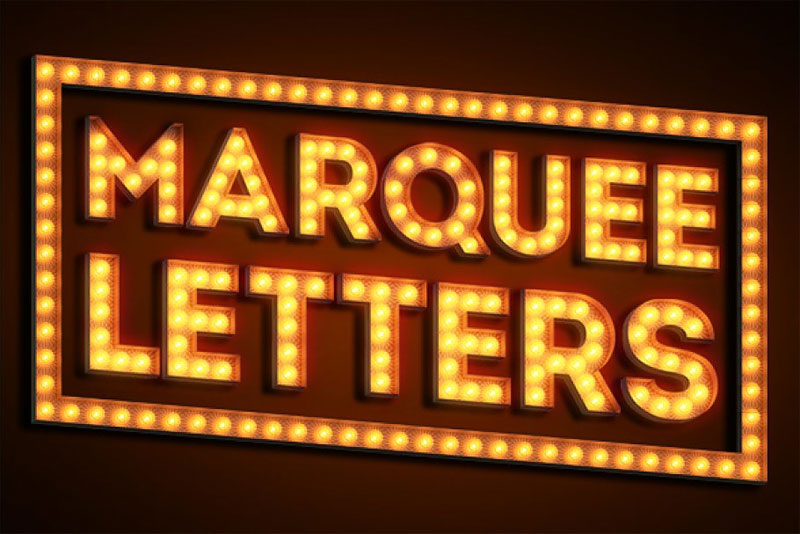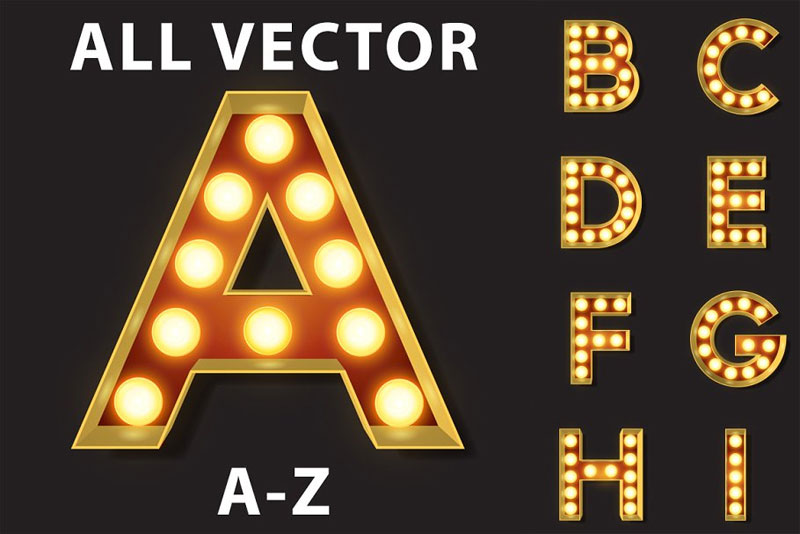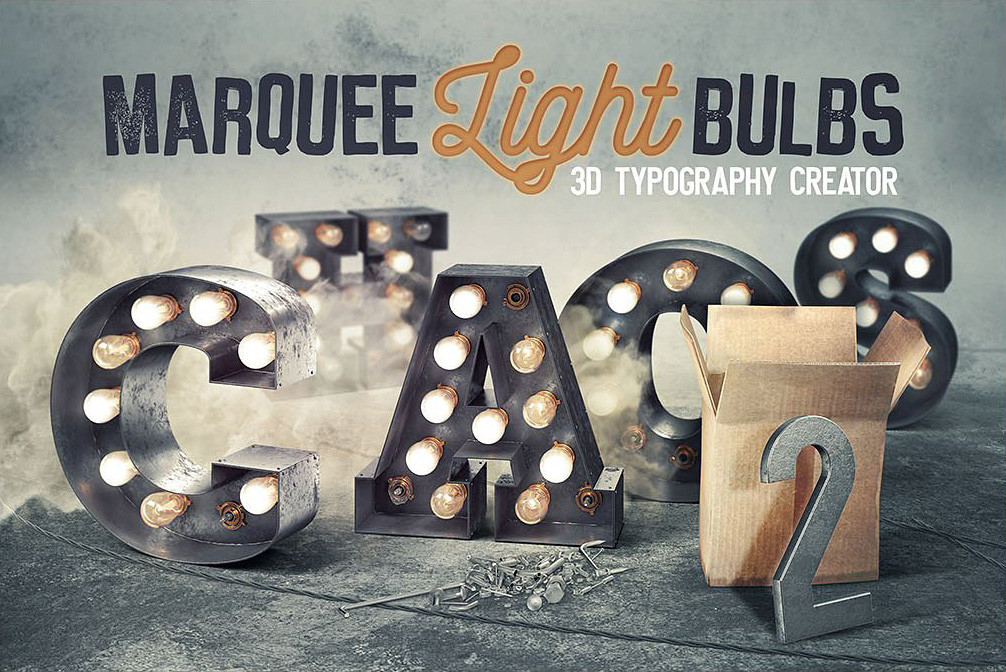
Our best friend and uk top graphic designer mr. Gloom font is a characteristic distance that is a light font.
Marquee Font Download Free Online Generator
Marquee letters font generator. This could be in the design of a typeface (i.e. Use it on your designs, posters and website. The text generator section features simple tools that let you create graphics with fonts of different styles as well as various text effects;
26 professional marquee lights fonts to download. Download free fonts for your website, mac, windows, linux, ios and android. This free pack of vintage style marquee bulb sign letters contains a total of 40 characters that you can arrange and compose to form any word or phrase you might want to display in lights within your designs.
It’s bold or all uppercase) or in how you as a designer apply the font (at a large size or in a prominent position, etc.). Click to find the best 29 free fonts in the theater style. Font meme is a fonts & typography resource.
60 free calligraphy fonts and lettering fonts download finding the right calligraphy font for your needs can be a hard and arduous task. Personalize with your own color! All the letters are composed of bright lights that you can use different colors using photoshop and cauldron software and use in circus and casino tables.
Take a look at the available text effects, and with more. Free broadway font (printable marquee letters and numbers with lights). This generator uses the marquee tag to create the marquee.
Just looking for the font used for a ball. Marquee moon by typodermic fonts is one of the fancy various marquee fonts. Free fonts often have not all characters and signs, and have no kerning pairs (avenue ↔ a venue, tea ↔ t ea).
Using this png text generator is very simple, you only need to enter your text, then select the font size and color to generate, some fonts look smaller, you can adjust the font size, the maximum can be set to 150 px, it is not recommended that you enter too long text,. The font collection section is the place where you can browse, filter, custom preview and. Each 3d model features a rusty metal material, realistic shading and illuminated bulbs with a transparent background.
So we shared his freebies on her vintage style marquee bulb sign letters pack. Enter your text and click on one of the effects. The fonts in use section features posts about fonts used in logos, films, tv shows, video games, books and more;
Feb 06, 2012 at 22:25. Solid dashed double dotted groove inset ridge outset. Create your own logo with stunning text effects.
Most fonts on this site are freeware, some are shareware or linkware. Every font is free to download! Try our best in class font generator for any category such as sans serif fonts, sans fonts, cool fonts, google fonts, adobe fonts, script fonts, western fonts.
Check it for free with typograph. Click to find the best 21 free fonts in the marquee style. Lindsay | september 17, 2014 this post may contain affiliate links, read my disclosure policy for details this post and the photos within it may contain amazon or other affiliate links.